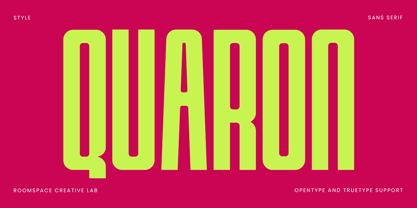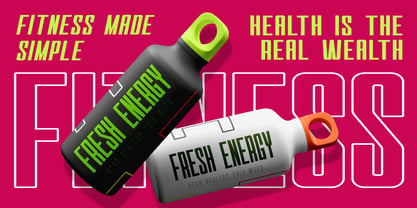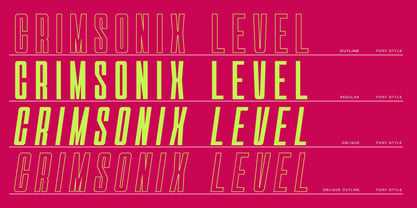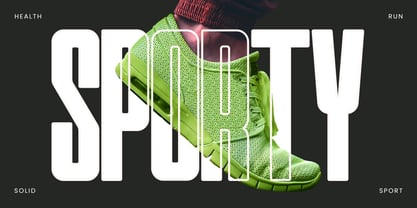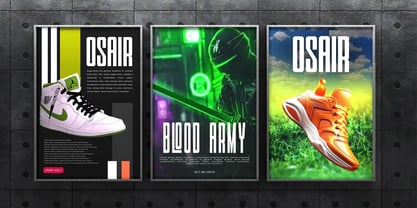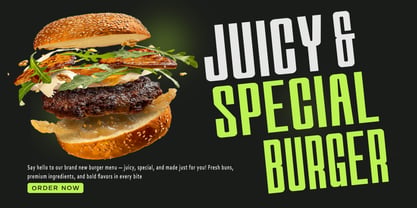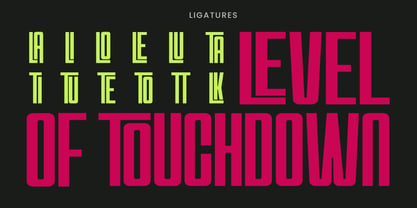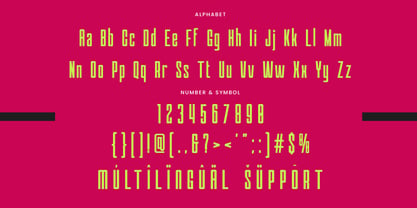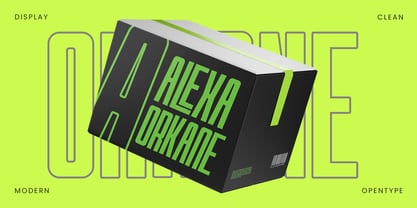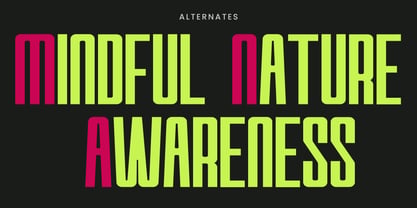
Quaron
The Quaron Font Family was designed by Bakhrudin Ja'far and published by Jafar07. Quaron contains 4 styles and family package options. More about this family
Quaron Condensed is a bold serif font designed with a modern and compact structure. Its condensed letterforms create a strong visual presence while saving space, making it perfect for impactful headlines and contemporary layouts. With its sharp serifs and elegant proportions, Quaron Condensed offers both power and sophistication in one typeface.
The font features refined terminals, consistent kerning, and a condensed structure that maximizes visibility without losing clarity. Every detail is designed to balance strength with elegance, offering flexibility for diverse design needs. With OpenType features and multilingual support, Quaron Condensed ensures smooth usability across branding, print, and digital platforms.
From editorial headlines and magazine titles to luxury logos, packaging, and advertising, Quaron Condensed adapts seamlessly to projects that demand attention. Its bold and narrow style allows designers to craft striking visuals that feel both modern and timeless. Add Quaron Condensed to your design toolkit and experience the perfect fusion of power and refinement.